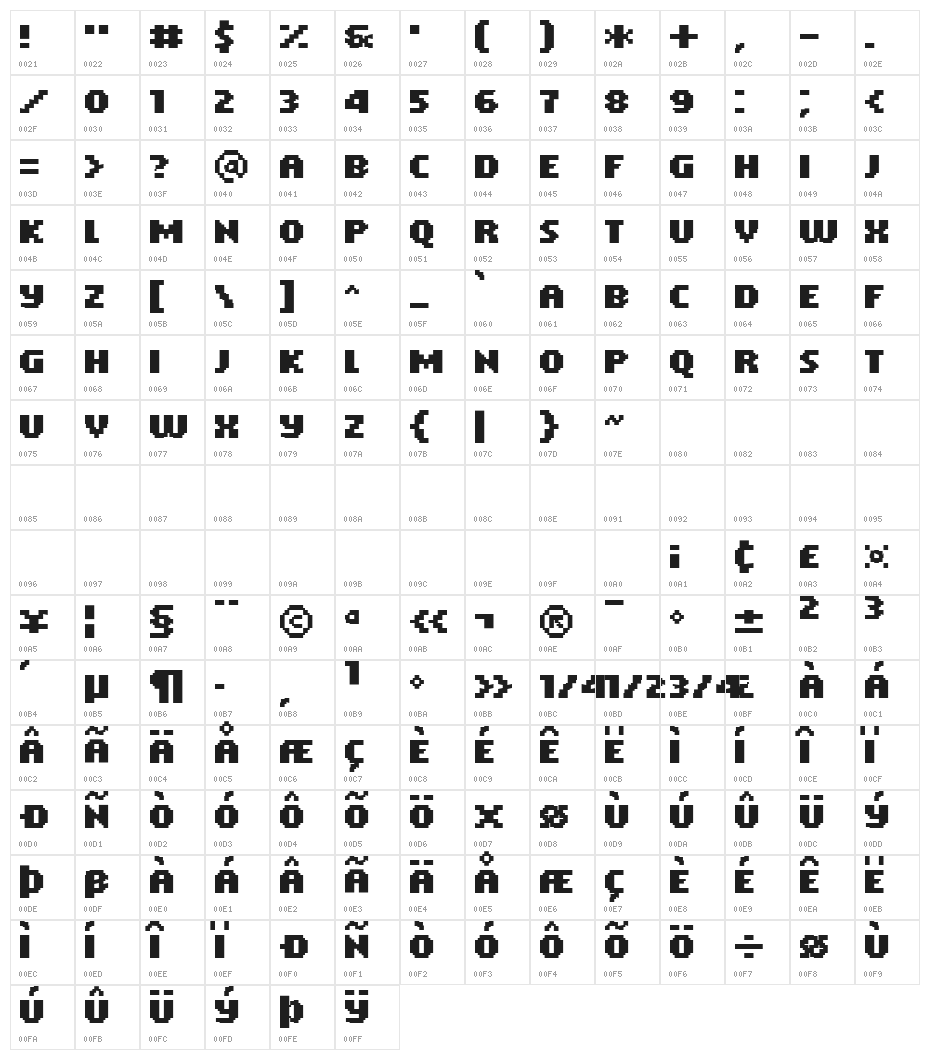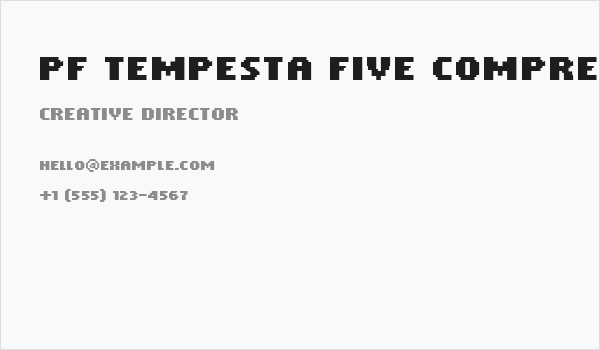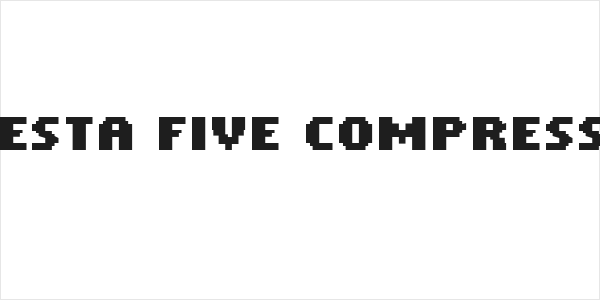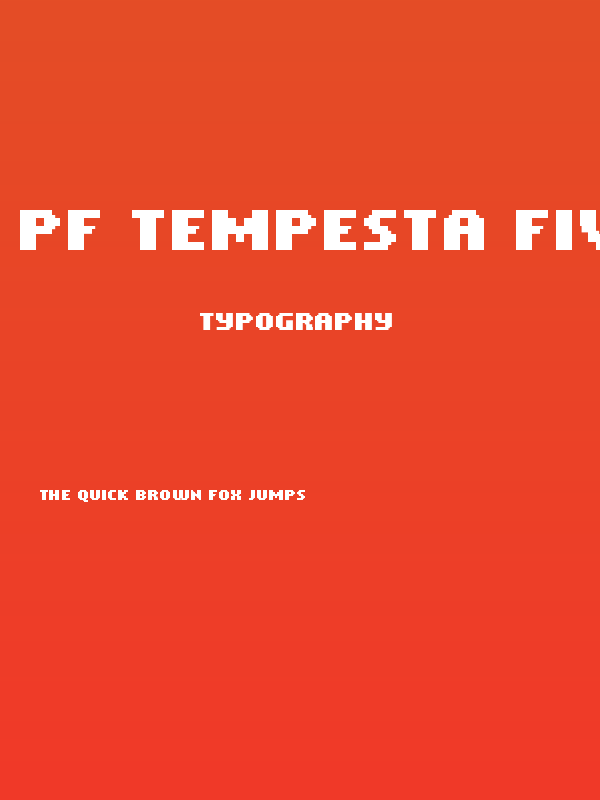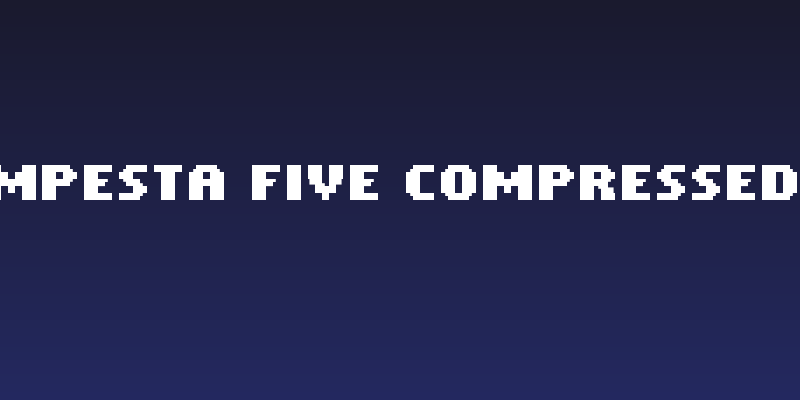
PF Tempesta Five Compressed Bold Font
PF Tempesta Five Compressed Bold Description
This font features a bold and compressed style with a distinct pixelated appearance. The characters are blocky and geometric, giving it a modern and digital feel. The uppercase and lowercase letters maintain a consistent height, contributing to its uniformity. The numbers and special characters follow the same design principles, ensuring a cohesive look across all elements. This font's unique style makes it stand out, ideal for projects that require a strong visual impact.
| Proposed Projects | Ideal for digital art, video game design, tech-themed posters, and retro-style branding. |